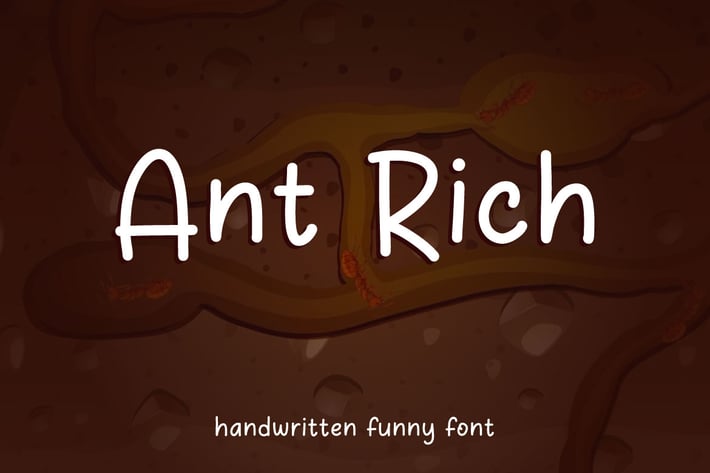
Ant Rich - Comic Funny Font
Hello! Ant Rich is a simple playful comic font.
Ant Rich can be used in any works such as flyer, book title, advertisement, social media content, logo and many more.